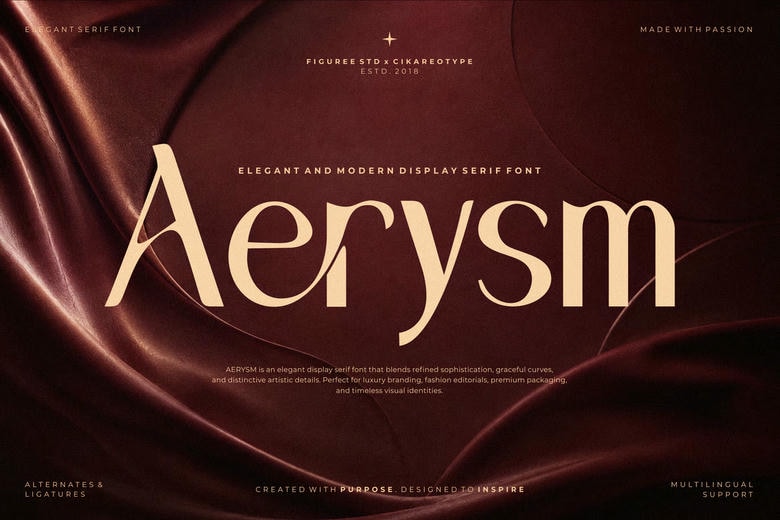
Aerysm Font
Aerysm is an elegant display serif font made for projects that need sophisticated typography, strong contrast, and a bold editorial style. Its serif design combines smooth curves, sharp details, and balanced shapes, making it ideal for eye-catching headlines and refined branding.
Aerysm is versatile and fits well in editorial layouts, logos, packaging, invitations, book covers, posters, ads, menus, hospitality projects, beauty products, and other polished promotional materials.
The font includes uppercase and lowercase letters, numbers, punctuation, symbols, multilingual support, alternate characters, and ligatures. These features give you more creative ways to design unique headlines, logos, titles, and custom typography.
Aerysm Elegant Display Serif Font